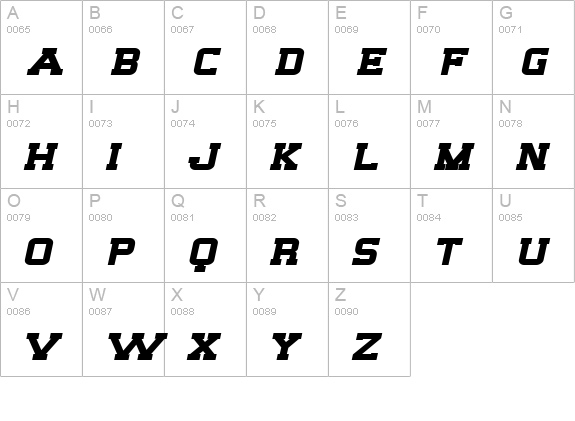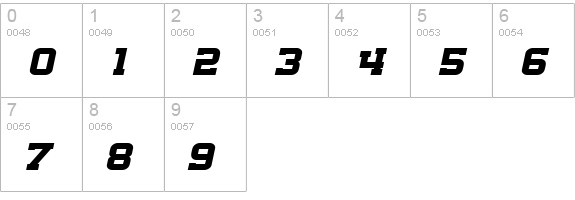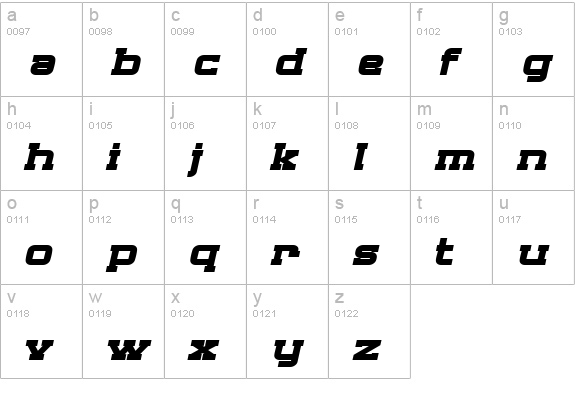
SF Big Whiskey Extended Bold Font Details
SF Big Whiskey Extended Bold is a strong, high-contrast, extended-width variant in the SF typeface family \xE2\x80\x94 well suited to headlines, attention-grabbing titles, and strong calls-to-action.
Introducing SF Big Whiskey Extended Bold font, a powerful and dynamic typeface designed to make a bold statement. This font exudes confidence and strength with its extended and bold letterforms, commanding attention with every character. Ideal for headlines, logos, posters, and other design projects that demand a strong visual impact, SF Big Whiskey Extended Bold font delivers a perfect blend of modernity and versatility. Its clean lines and distinct style add a touch of sophistication, making it suitable for a wide range of applications. What sets SF Big Whiskey Extended Bold font apart is not only its impressive aesthetic appeal but also its accessibility. As a bonus, it is available for free download exclusively at FontsMarket.com. This means that designers, artists, and enthusiasts can easily access and utilize this incredible font without any cost. With SF Big Whiskey Extended Bold font, you can elevate your designs to new heights, captivate your audience, and leave a lasting impression. Its bold presence and striking visual impact will ensure that your message stands out from the crowd. So, why wait? Download SF Big Whiskey Extended Bold font today and unleash the power of bold typography in your creative endeavors.